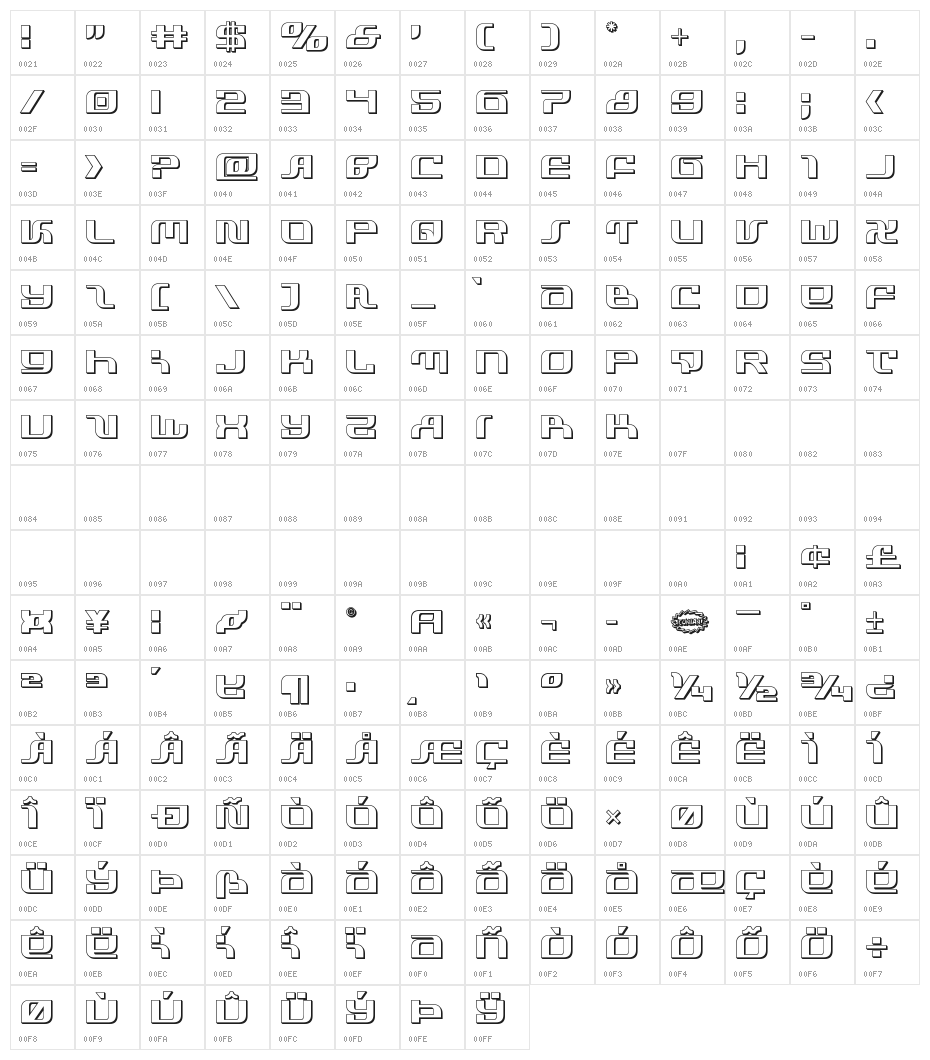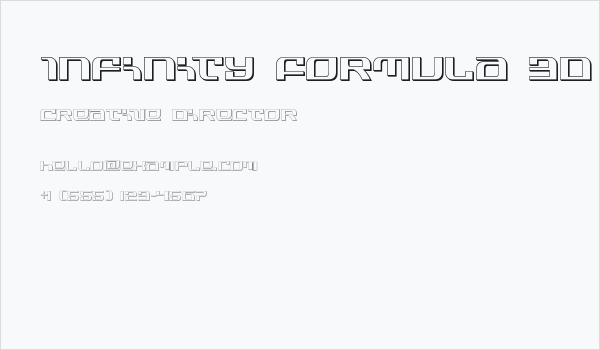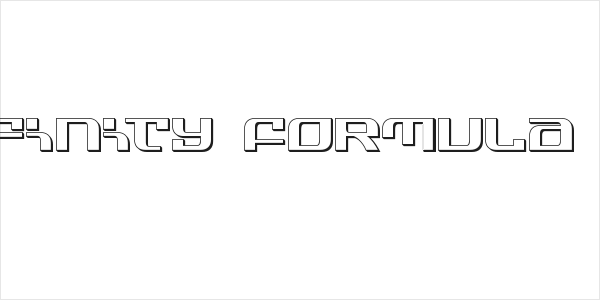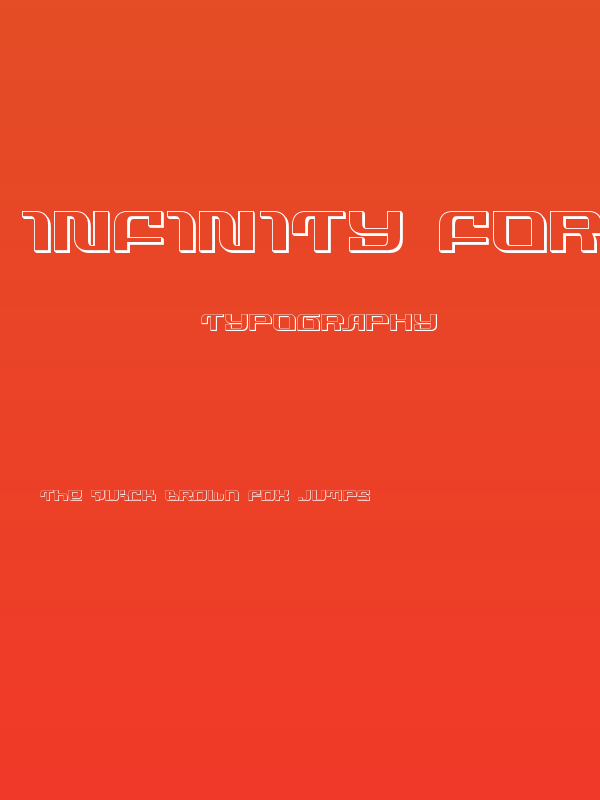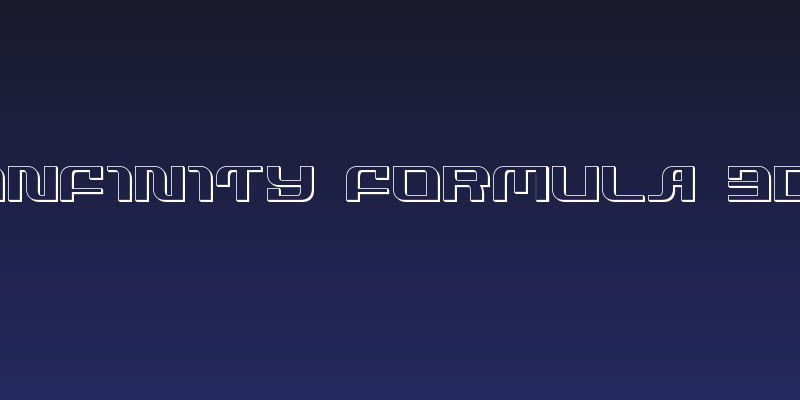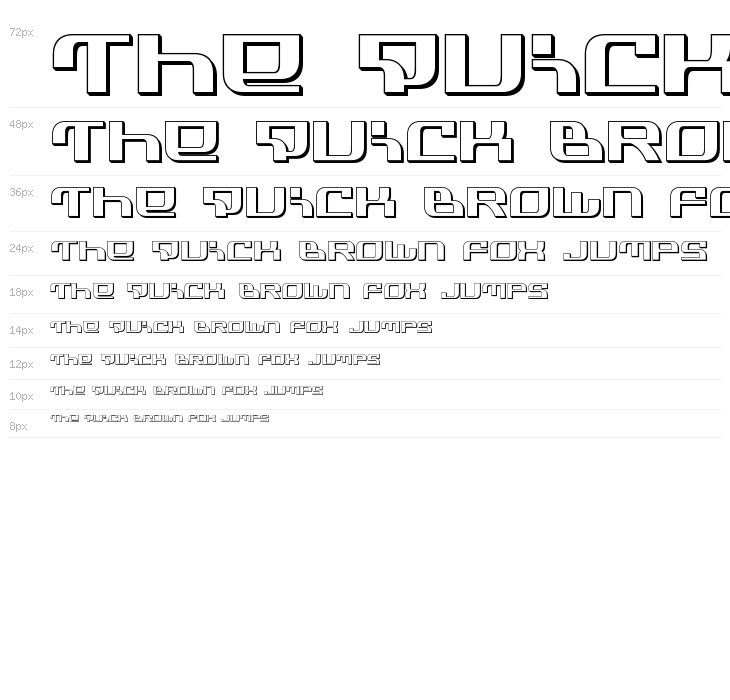
Infinity Formula 3D Font
Infinity Formula 3D Description
This font features a futuristic and geometric design, characterized by its bold, three-dimensional appearance. The letters are constructed with a double-line structure that creates an illusion of depth, making it stand out as a display typeface. The uppercase and lowercase letters share a consistent style, with angular and rounded elements that blend seamlessly. Numbers and special characters are designed to match the overall aesthetic, maintaining the same bold and structured look. The font's unique style makes it ideal for projects that require a modern and tech-inspired feel.
| Proposed Projects | Ideal for sci-fi movie posters, tech company logos, video game titles, and futuristic-themed event invitations. |